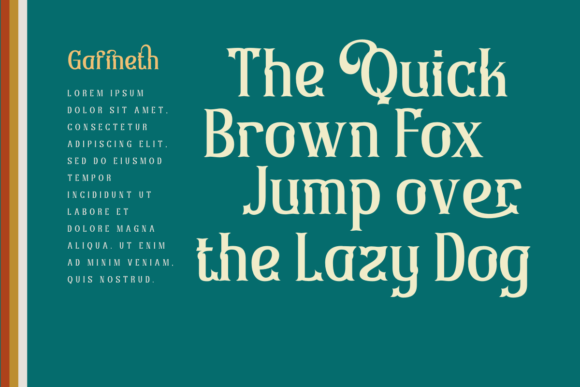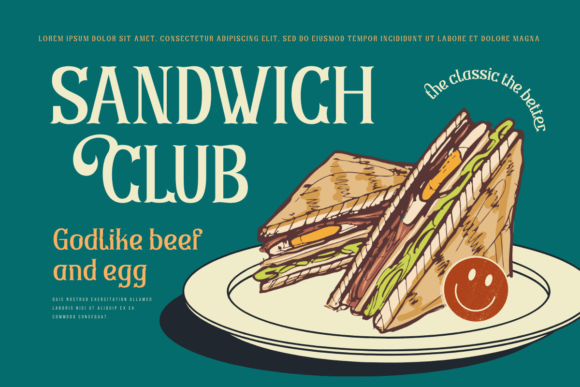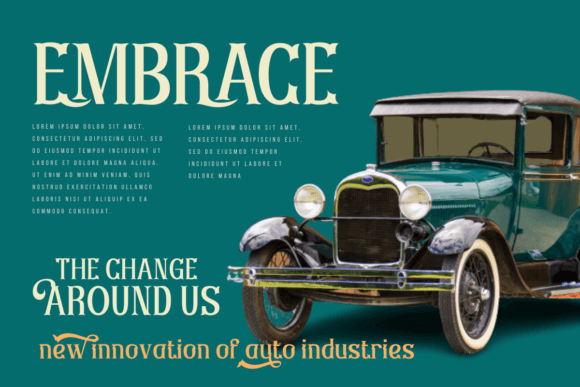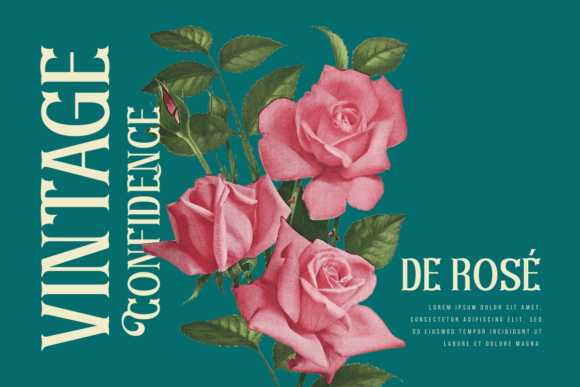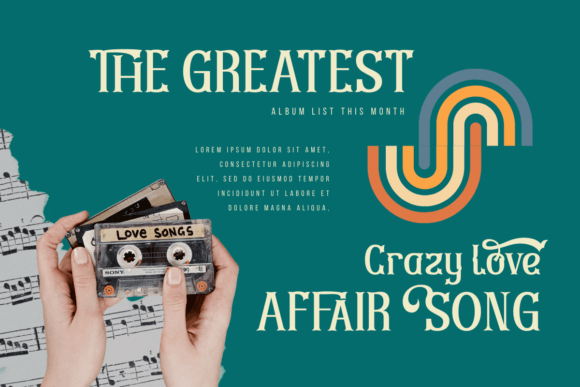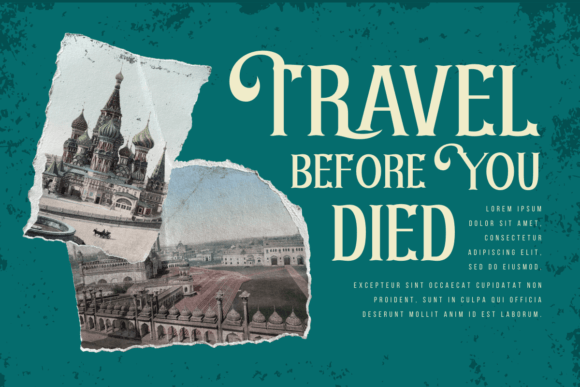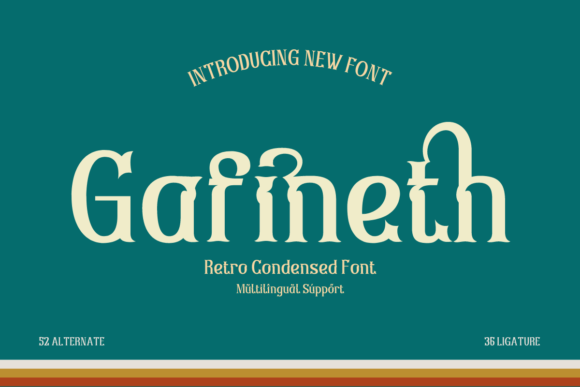
Gafineth Font: Elevate Your Designs with a Touch of Classic Elegance
In the world of typography, fonts play a crucial role in conveying the tone and personality of a design. For designers and crafters looking to add a touch of sophistication and elegance to their projects, Gafineth Font is an excellent choice. This retro and classic display font seamlessly blends the best of both classic and modern typography, making it a versatile option for a wide range of design applications.
The Charm of Gafineth Font
Gafineth Font is a beautifully crafted font that exudes a sense of nostalgia and refinement. Its classic design elements are reminiscent of traditional typography, while its modern twists make it perfect for contemporary design projects. The font’s elegant lines, subtle curves, and precise lettering make it an excellent choice for designers seeking to create sophisticated and eye-catching designs.
Key Features of Gafineth Font
• Retro and Classic Design: Gafineth Font boasts a unique retro and classic design that adds a touch of elegance to any project.
• Versatile and Adaptable: Gafineth Font is suitable for a wide range of design applications, from print to digital media.
• Sophisticated and Elegant: The font’s classic and modern design elements make it perfect for designers seeking to create sophisticated and eye-catching designs.
Use Cases for Gafineth Font
Gafineth Font is an incredibly versatile font that can be used in various design projects, including:
• Print Design: Use Gafineth Font to create stunning print materials, such as brochures, posters, business cards, and invitations.
• Digital Media: The font is perfect for digital design projects, including website headers, social media graphics, and email marketing campaigns.
• Branding and Packaging: Gafineth Font can be used to create elegant and sophisticated brand identities, including logos, labels, and packaging designs.
• Crafting and DIY Projects: Crafters and DIY enthusiasts can use Gafineth Font to add a personal touch to their projects, such as handmade cards, scrapbooking, and journaling.
Tips for Using Gafineth Font
Gafineth Font is an excellent choice for designers and crafters looking to add a touch of classic elegance to their projects. Its sophisticated and elegant design, versatility, and PUA encoding make it a valuable addition to any design collection. Whether you’re designing for print or digital media, Gafineth Font is sure to elevate your designs and help you create stunning visual content.